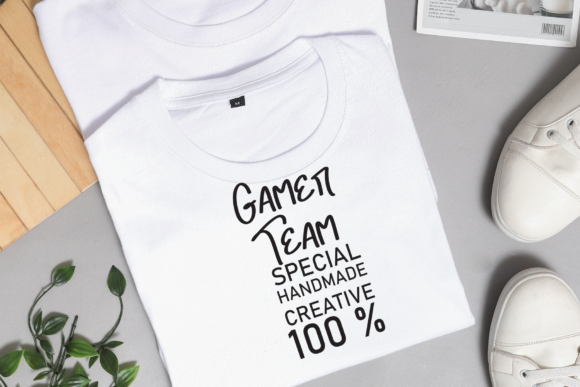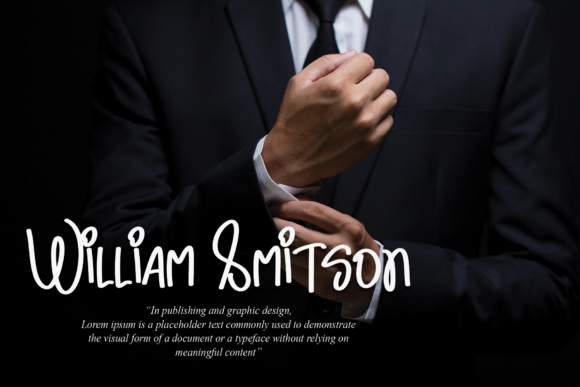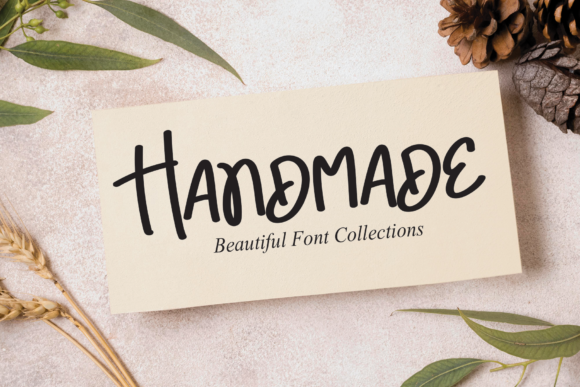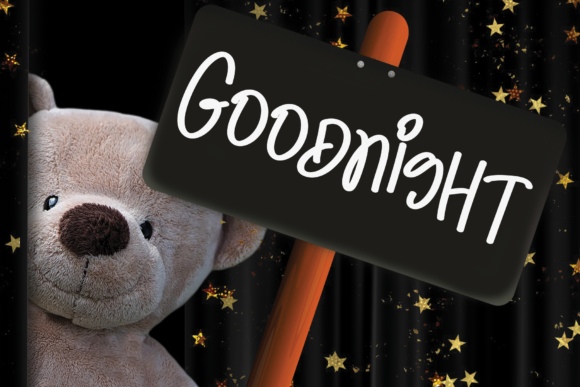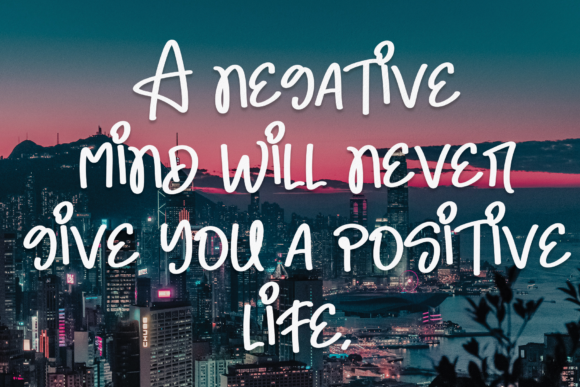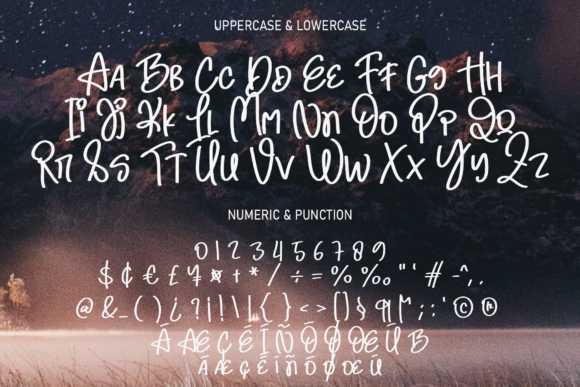
Introduction to Night Full of Light Font
Night Full of Light is an amazing handwritten font that will give you an extraordinary experience.
Its latest style letters are perfect for wall displays, wedding invitations, social media post logos, advertisements, product packaging, product designs, labels, photography, watermarks, invitations, stationery, and any project that requires handwriting taste .
Night Full of Light Font offers exceptional quality and versatility, making it a valuable addition to your design toolkit. Whether you’re creating for personal projects or commercial use, Night Full of Light Font delivers professional results.